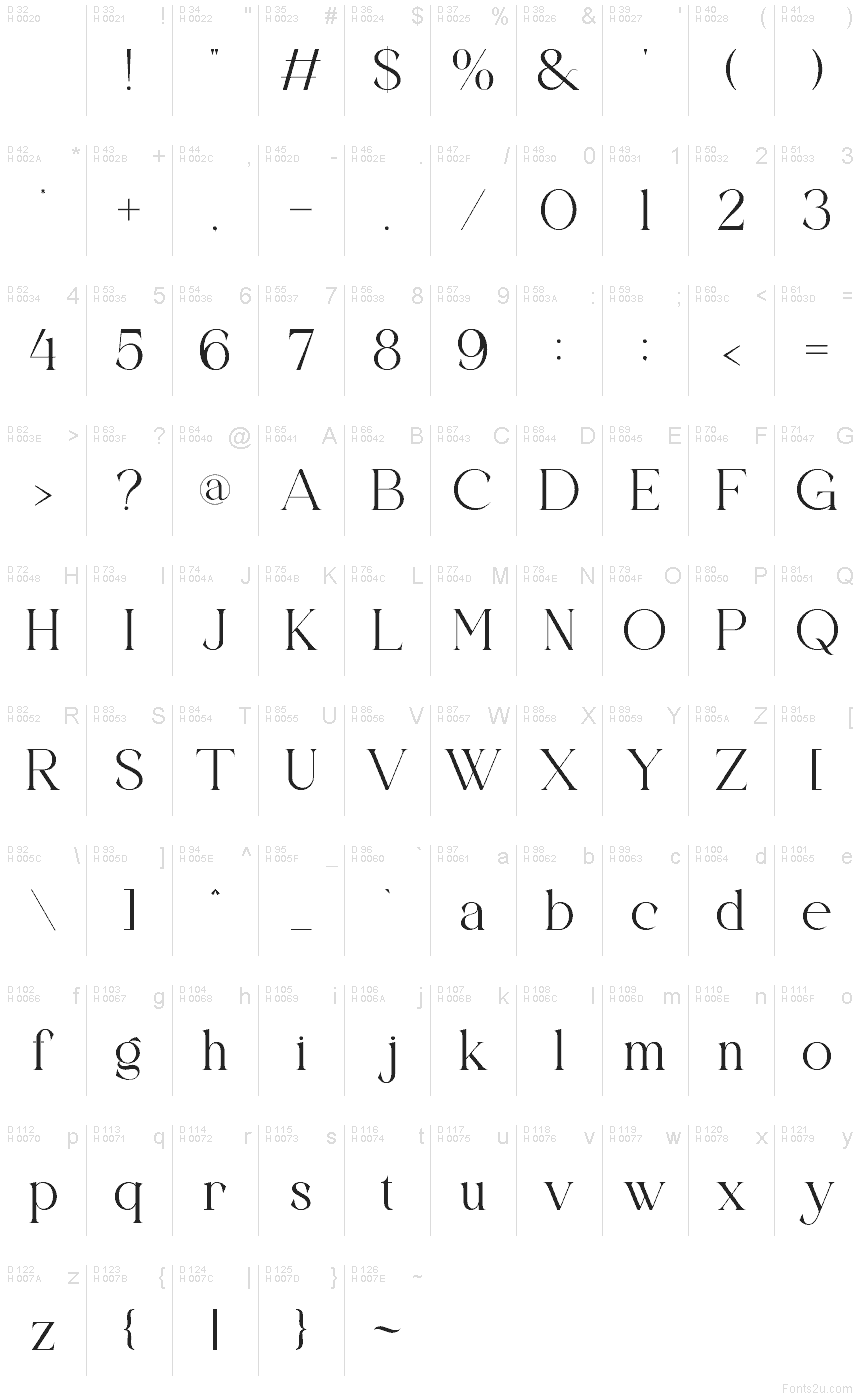
Farossa
Farossa font by Ermedia Studio is a free high-contrast serif display font. It stands out with razor-thin hairlines against inky thick stems, sculpted ball terminals, and sleek, quietly dramatic curves that catch the light like lacquer. The spacing feels measured and elegant, letting the letters breathe while still landing with a refined snap—equal parts couture and editorial.
Using Farossa, headlines take on a polished, fashion-forward presence that shines on magazine mastheads, luxury logos, beauty packaging, wine labels, event posters, and editorial pull quotes. This free font rewards large sizes where its delicate details stay crisp. Pair it with a calm grotesk sans for body copy, and give it a touch of letter-spacing to heighten the luxe vibe.